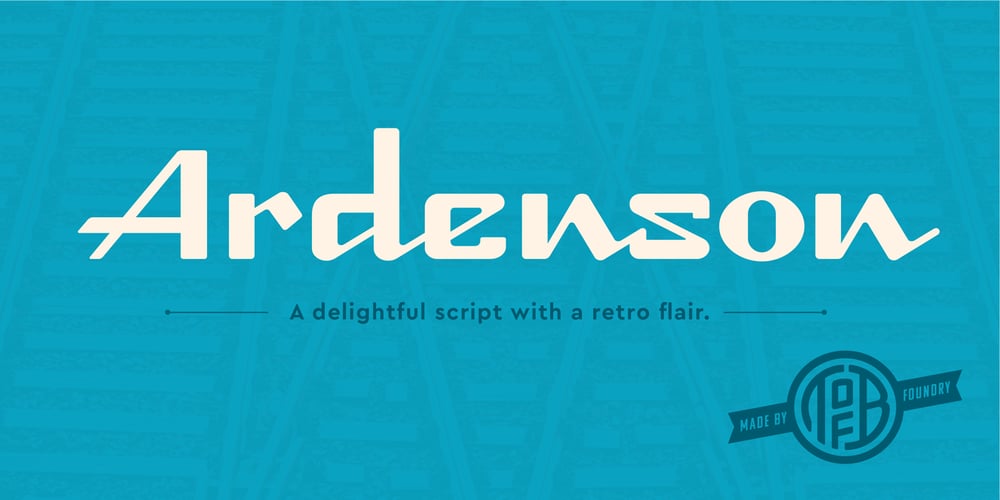
Ardenson Font Family was designed by Eric Stevens and published by Tower of Babel. Ardenson contains 1 styles and family package options. Ardenson is an invitingly delightful script with a retro flair. Inspired by apartment signage of the 1950s and 60s, Ardenson strikes a vintage note that also feels at home in the present time. Perfect for any logo, signage, label design or any other project that needs a unique charm and laid back attitude.